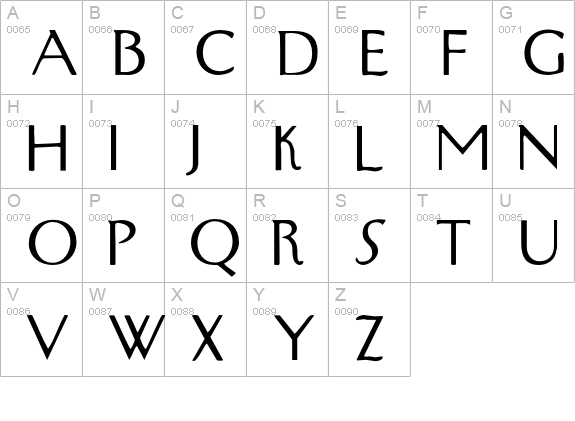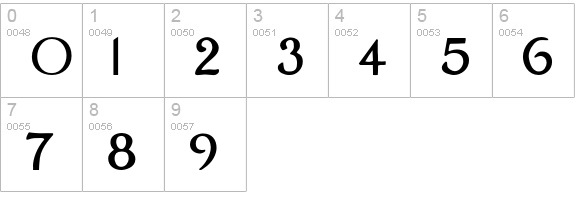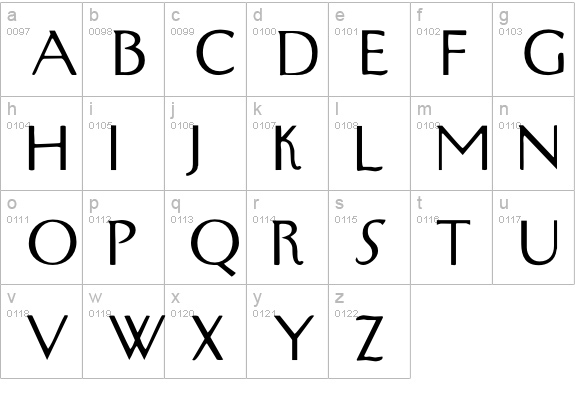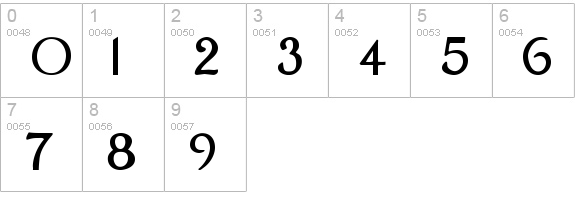
Manhattan Font Details
Introducing Manhattan, a stunning font that effortlessly captures the essence of modernity and sophistication. With its sleek and streamlined design, this typeface is the perfect choice for any project seeking to make a bold statement. Whether used for headlines, logos, or body text, Manhattan exudes a sense of timeless elegance that is sure to leave a lasting impression. But what sets Manhattan apart from the rest is its availability - yes, you read that right, it's completely free! Now, you can elevate your designs without breaking the bank. Say goodbye to expensive font licenses and hello to the freedom of creativity. With Manhattan, you have the power to transform your projects into works of art, all without spending a dime. To get your hands on this incredible font, simply head over to FontsMarket.com. There, you will find Manhattan available for free download, ready to enhance your designs and take them to new heights. So don't miss out on this amazing opportunity to bring a touch of Manhattan's charm to your next project. Download Manhattan today and let your creativity soar!